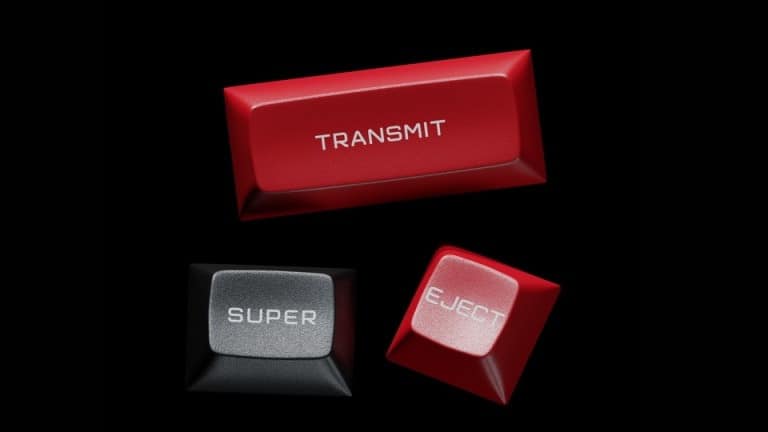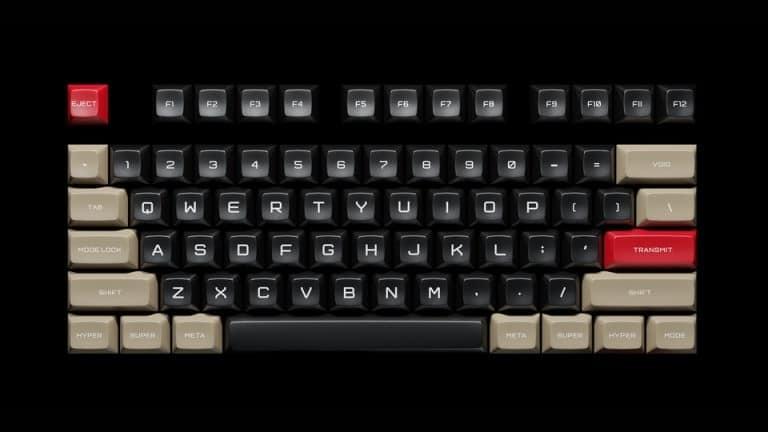
FPD Pressure Sans Serif Font
FPD Pressure Sans Serif Font – sharp & strong sans-serif typeface. Pressure is designed to look strictly and authentically in logos, on signboards, in fashion magazines. Made from font designer named Felix Summ. It’s inspired by DSA profile keycaps and retro keyboards such as the Space Cadet and fonts featured in science-fiction movies. The letterforms are thus more square in shape and have their own subtle, retro roundness to them.